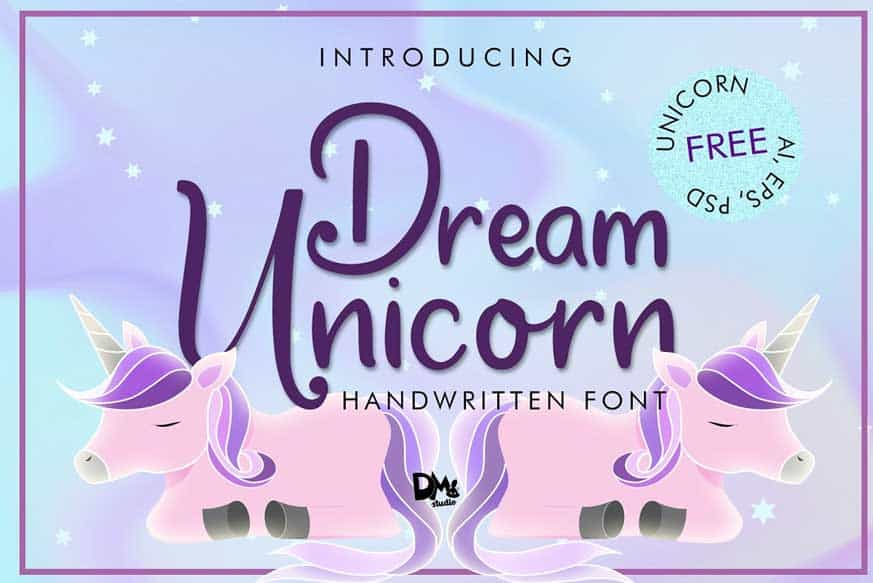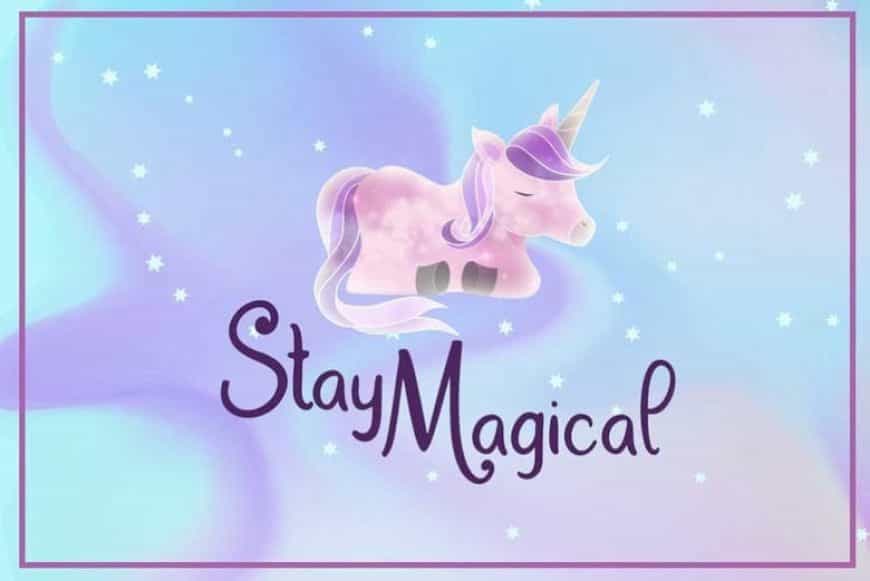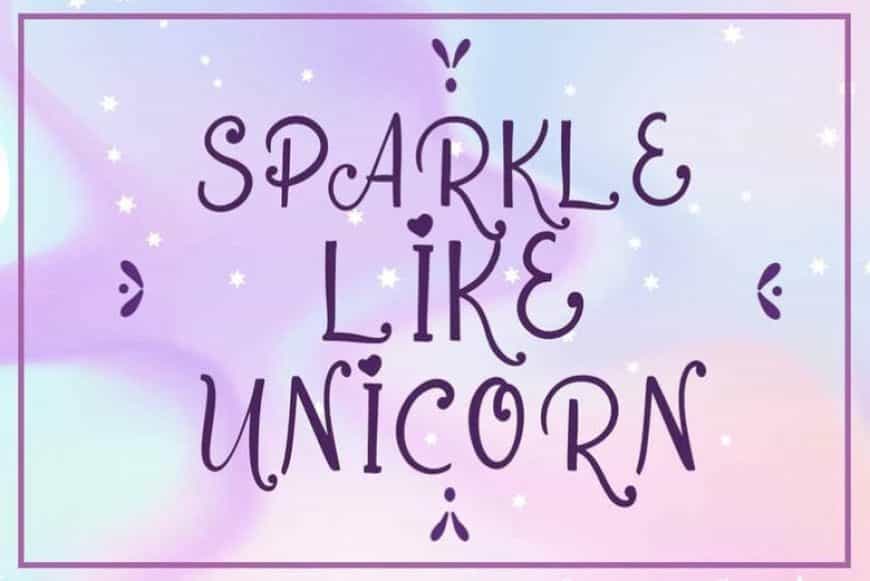
Dream Unicorn is a charming and cute handwritten font. Combine this interesting typographical piece with the supplementary Unicorn designs to create unique crafts, such as banners placed over your desk or in movies as a plot device.